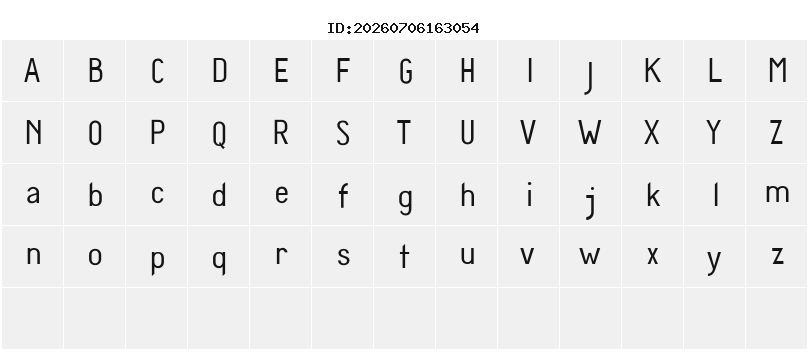
Diamante Preview
• Font Name: Diamante
• Font Style: Light
• Font ID: Katiuscia Mari for Monofonts: Diamante: 2011
• Full Font Name: Diamante Light
• PostScript Name: Diamante-Light
• Designer: Katiuscia Mari
• Manufacturer: Katiuscia Mari for Monofonts
About Diamante.ttf
Diamante.ttf is a modern, elegant sans-serif font designed for ultimate readability and visual harmony. Perfect for branding, headlines, web design, and print materials.